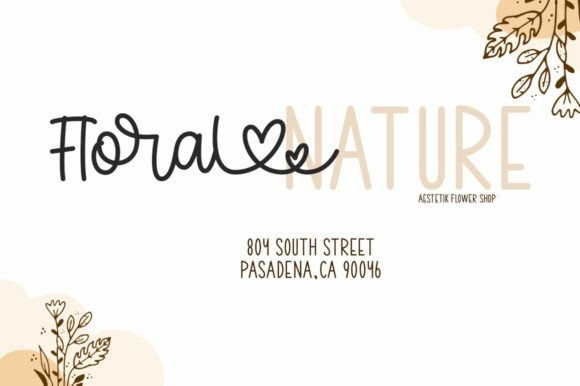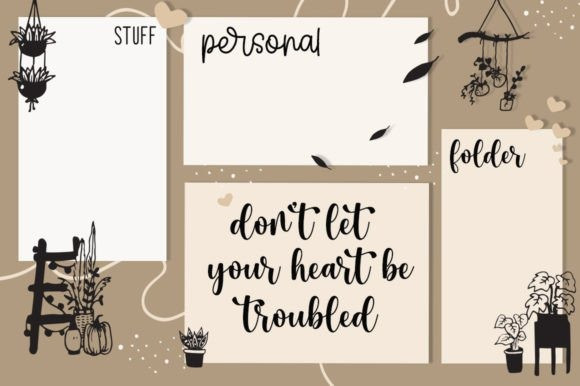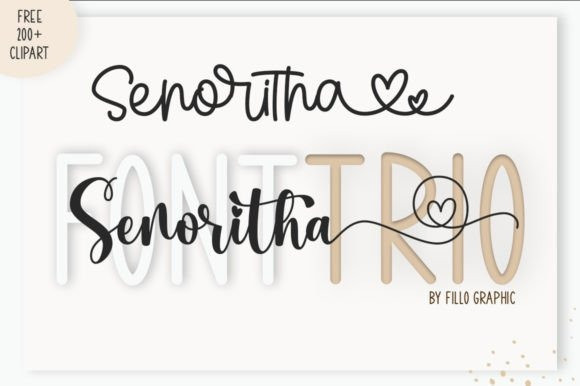
Senoritha Font Trio
Senoritha Font Trio: Includes three fonts (cursive, handwritten, and sans serif) designed to complement each other perfectly. Together or separately, these fonts are ideal for adding a touch of elegance and playfulness to your handiwork. This font is PUA encoded, meaning you have easy access to all the glyphs and curves!